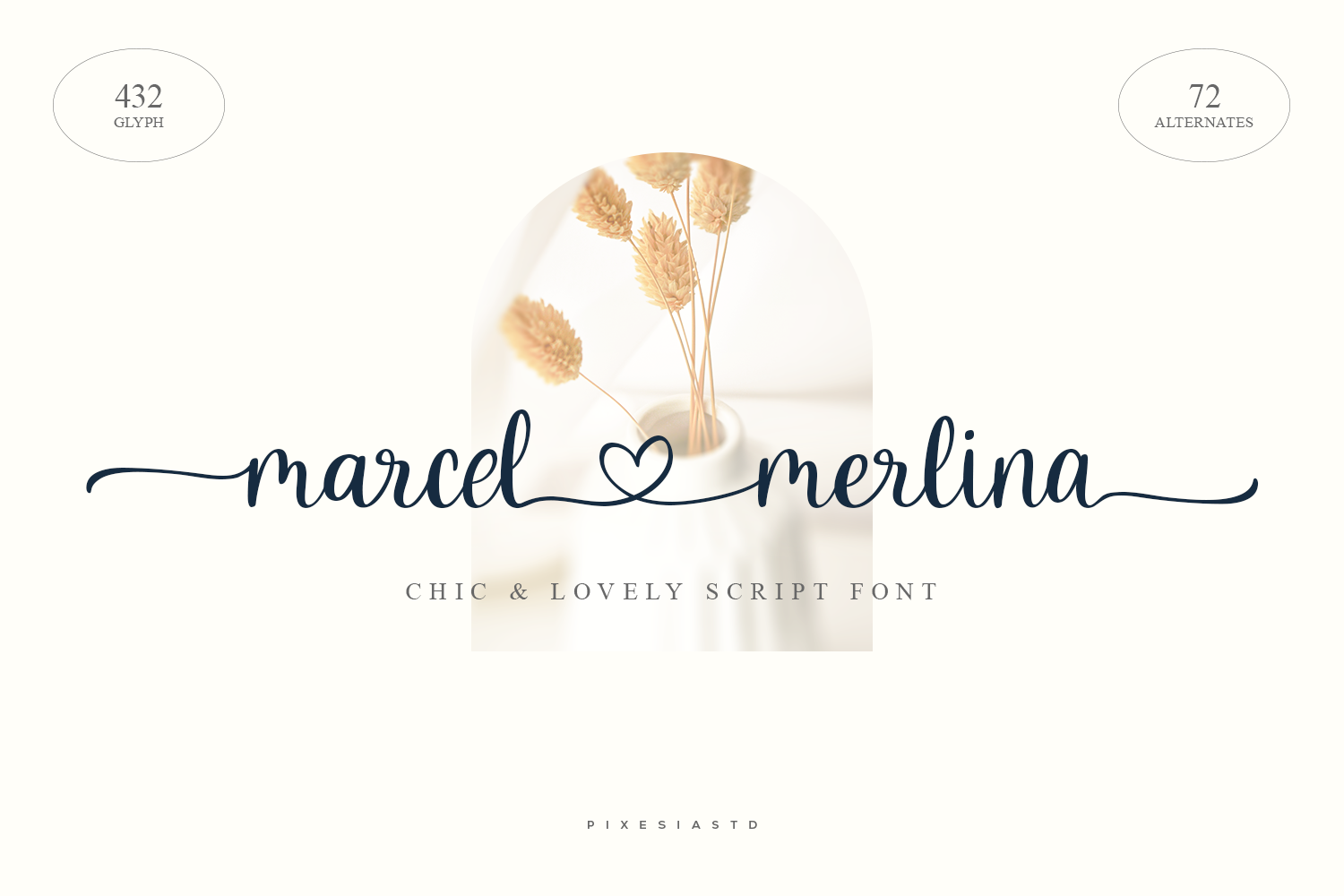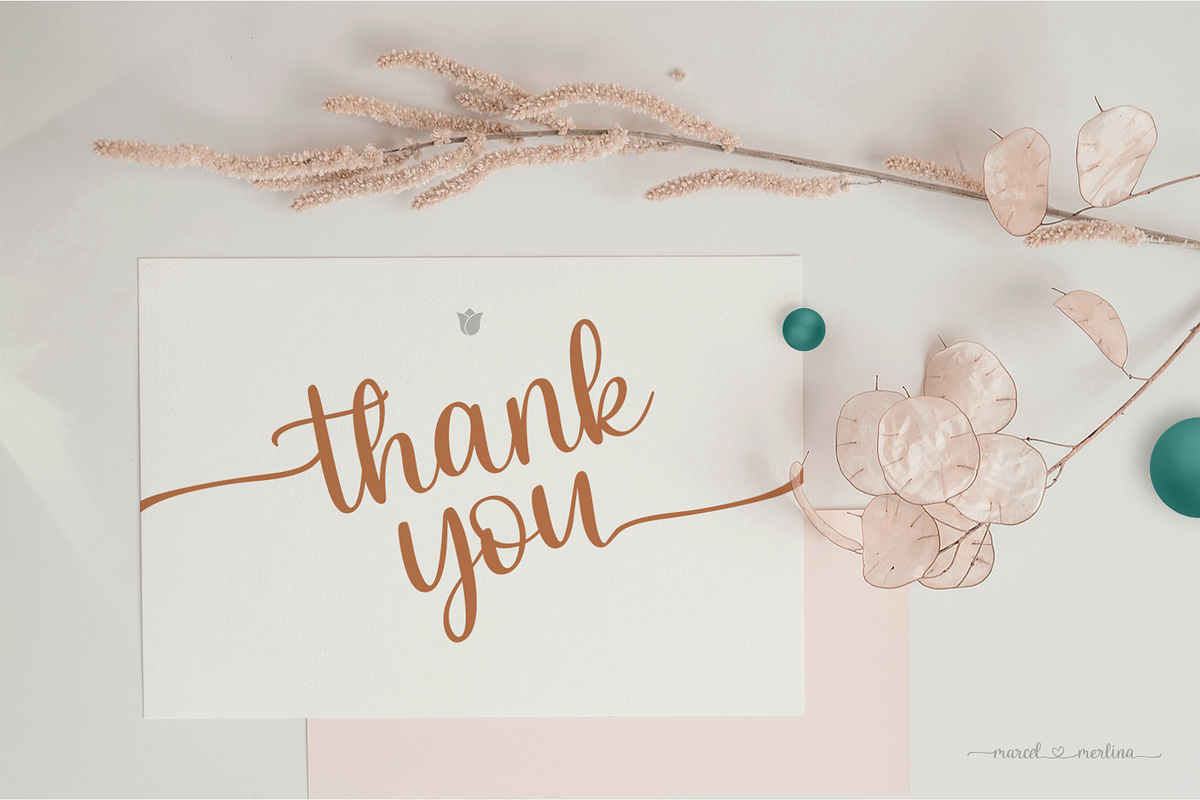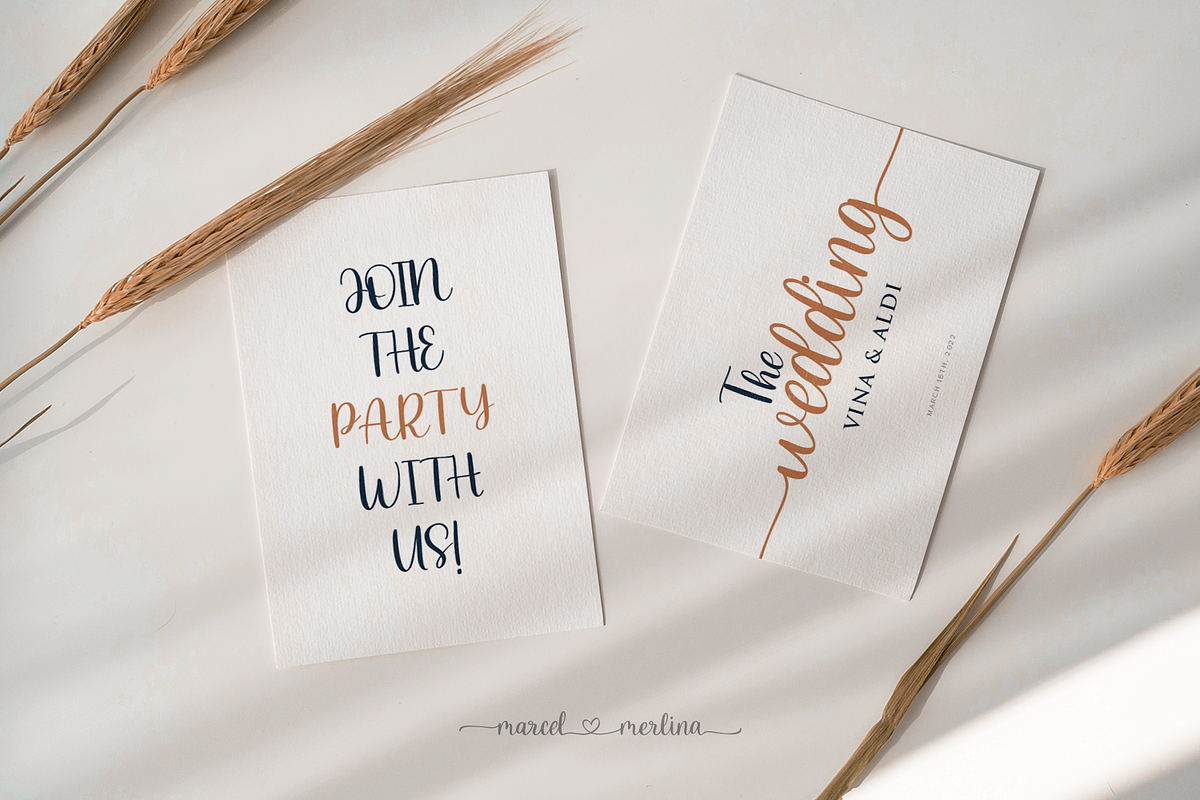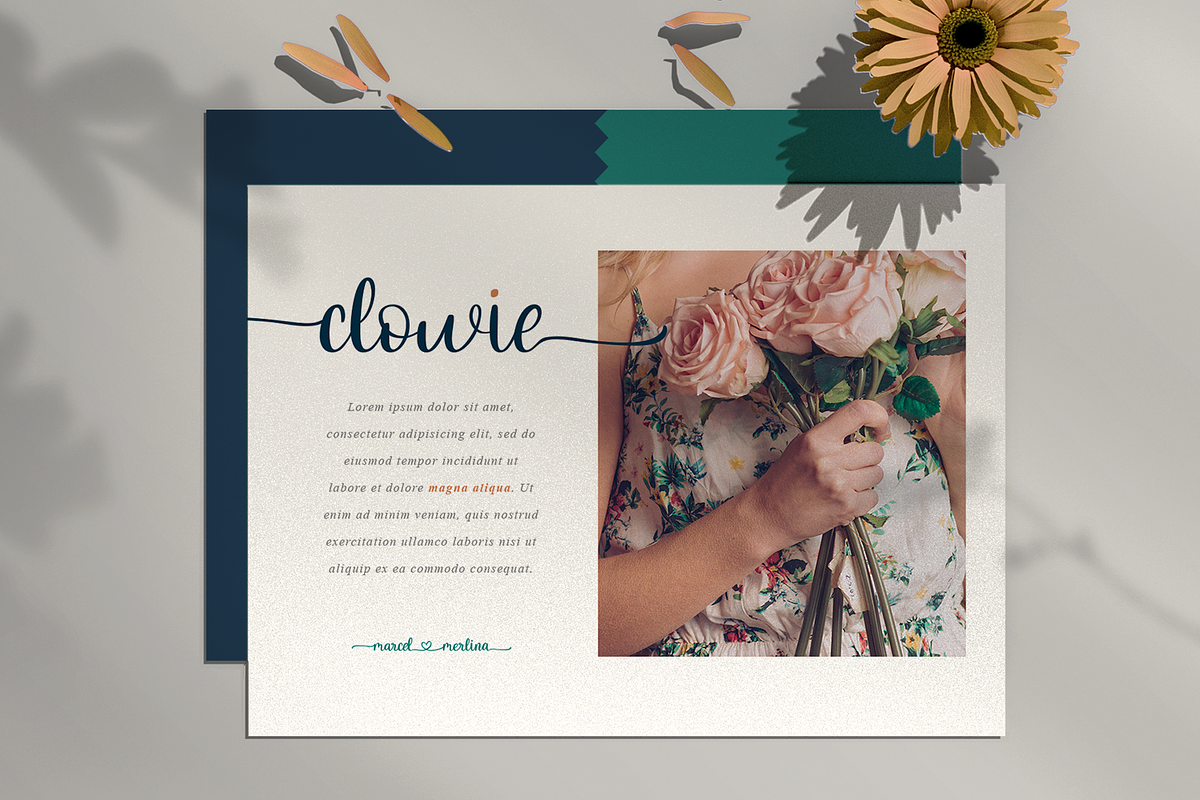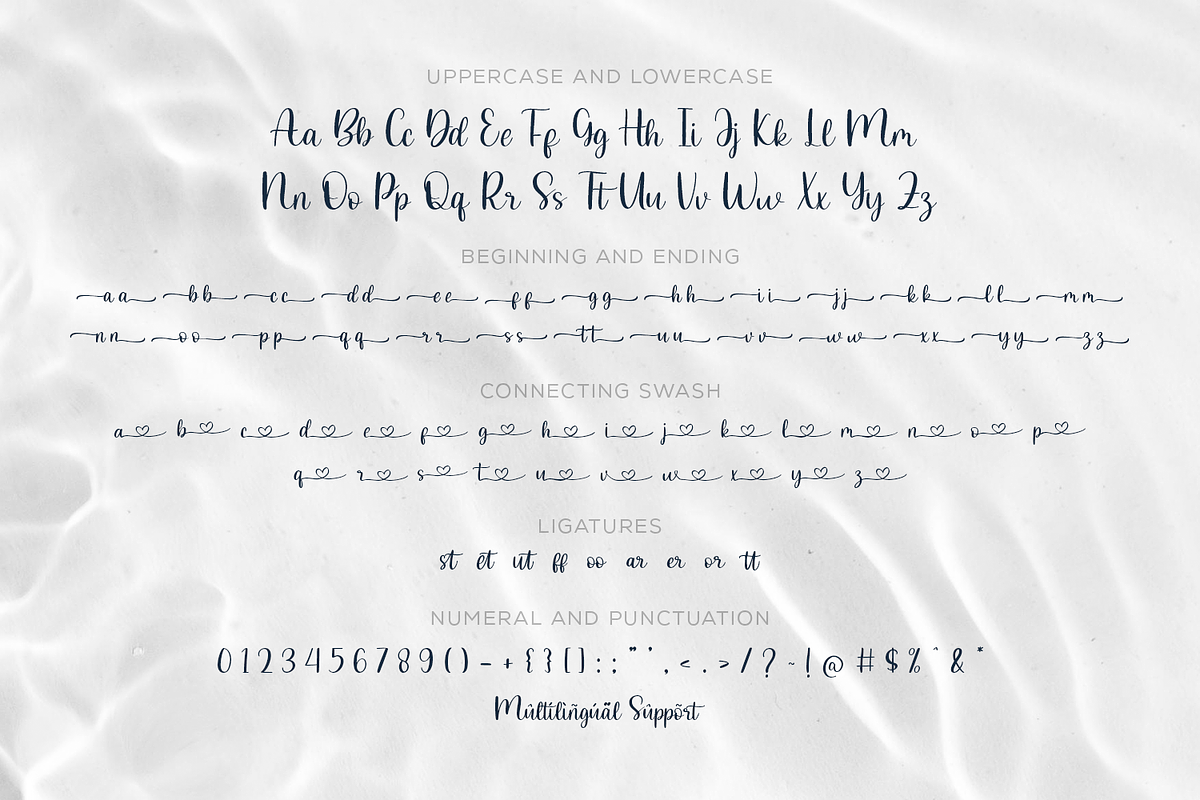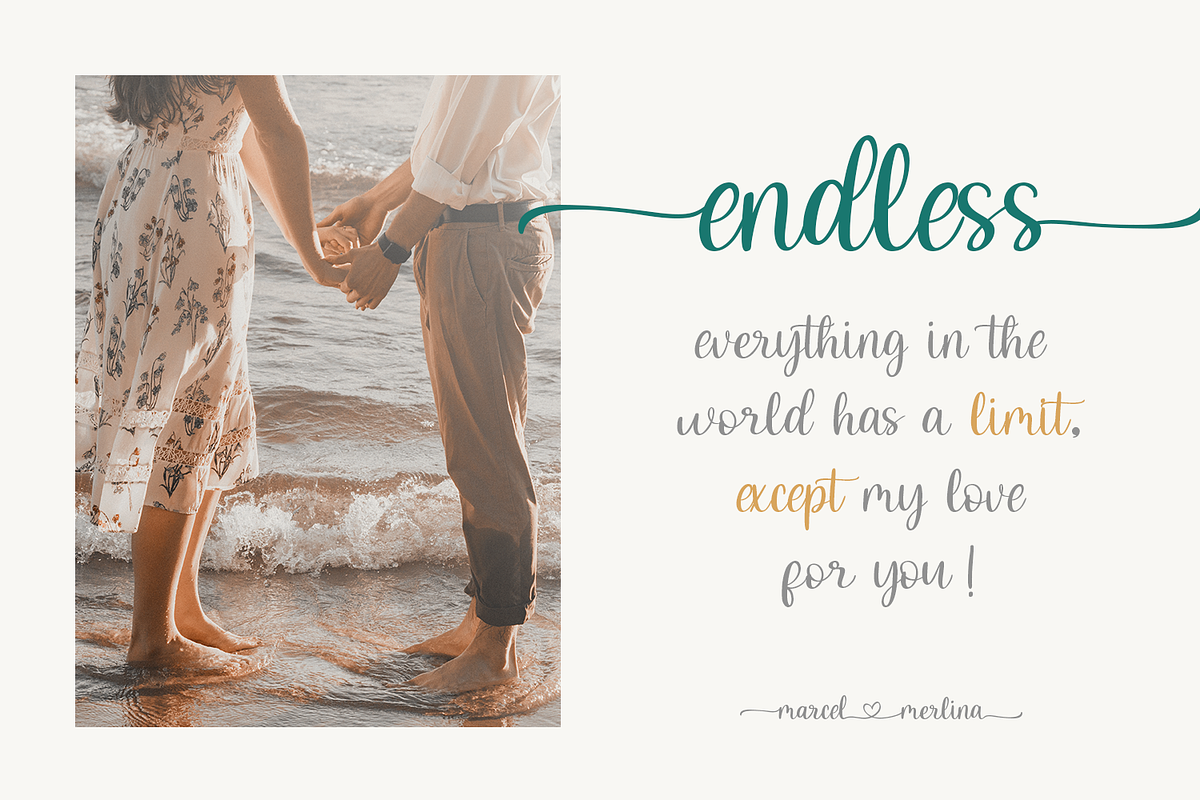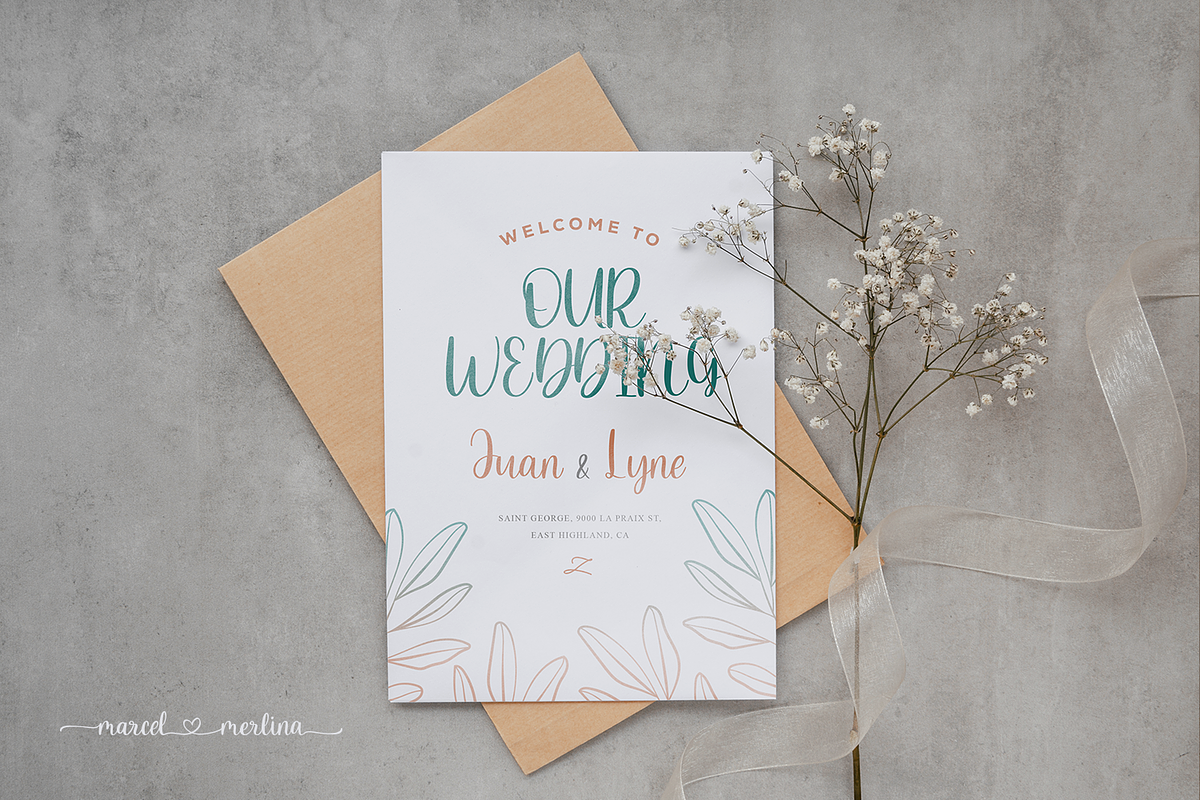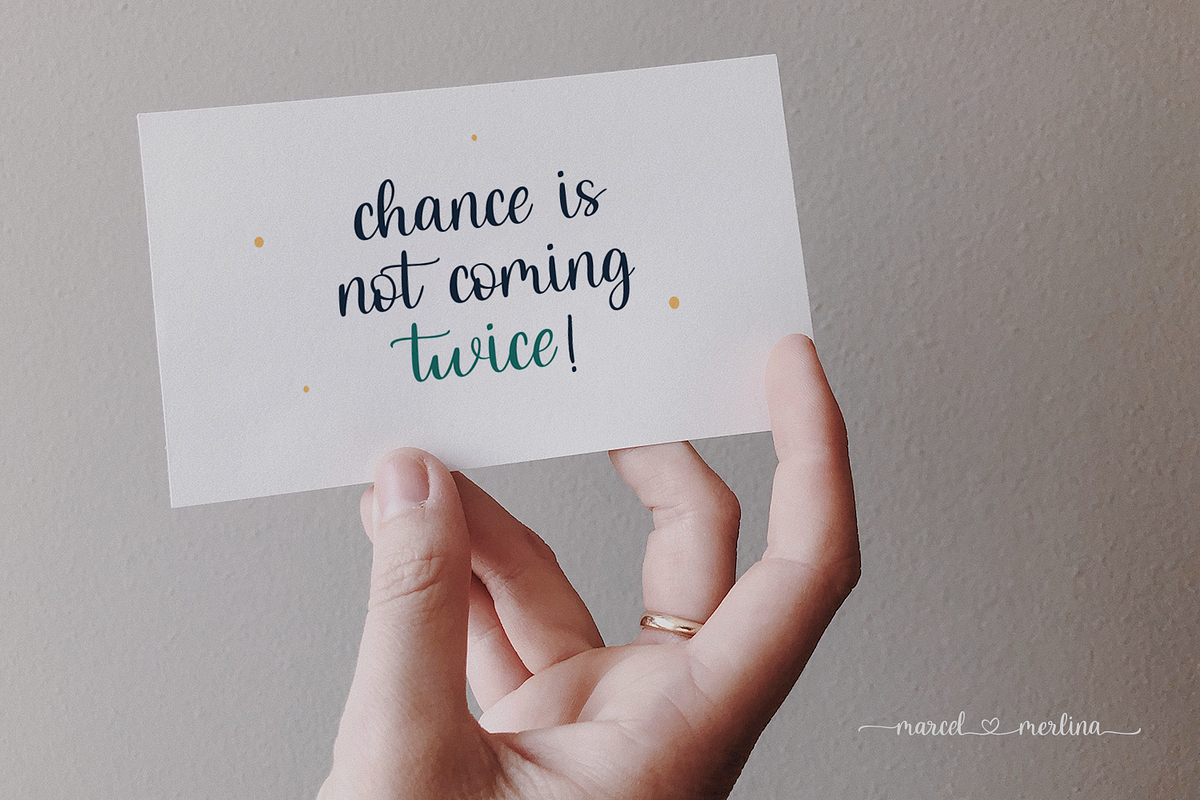
Marcel Merlina - Lovely Chic Font
Introducing Marcel Merlina - A Lovely Chic Script Font
Marcel and Marlina is now released as beautiful as romance is. This font-type gives you the vibe of an elegant and the classic-yet-so fresh kind of feeling. The curves and the flexibility of the fonts provide you the warm and familiar sense—as if you are reading letters from your beloved ones.
Marcel and Marlina is meant to be endearing—portray the warmth of love. This font is designed to be used in such occasions which require high involvement of delightful emotion. This font would be best to be used in wedding invitations, love letters, and sincere greeting cards for someone so dear to you.